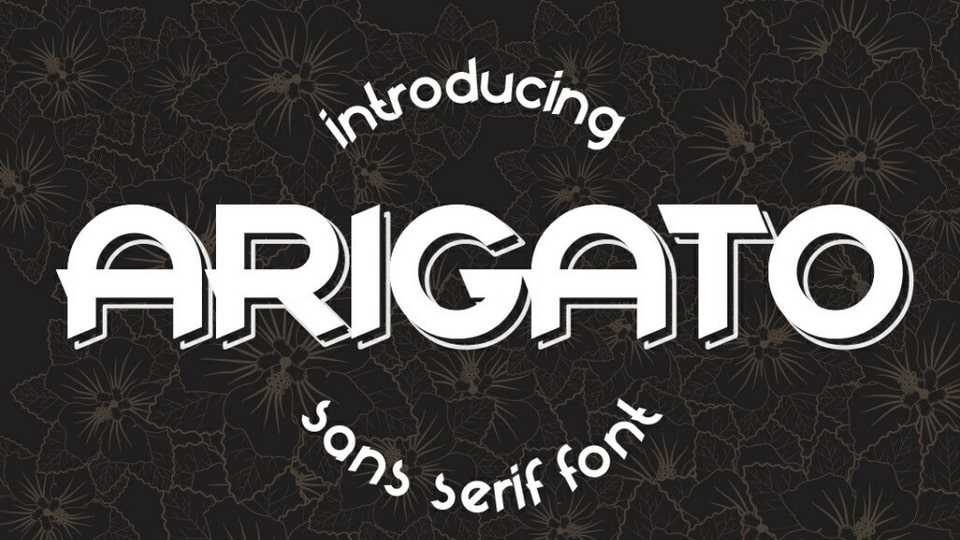
Download Arigato font, a modern geometric all caps sans serif typeface that looks stunning in every context. Arigato font is best for posters and headlines.
Designer: Andrey Dykun